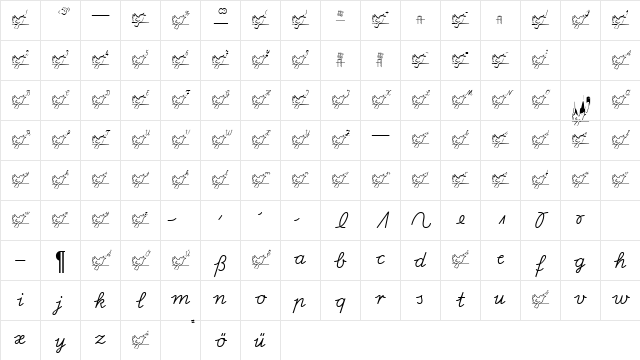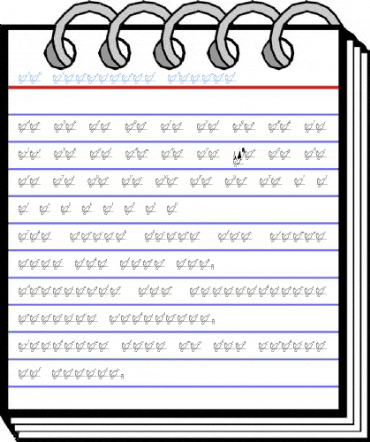
KD Singvogel Normal Free Font
KD Singvogel Normal
Style: Normal
Design Context for KD Singvogel
KD Singvogel is a composed and adaptable typeface that performs quietly and consistently across a wide range of design contexts.